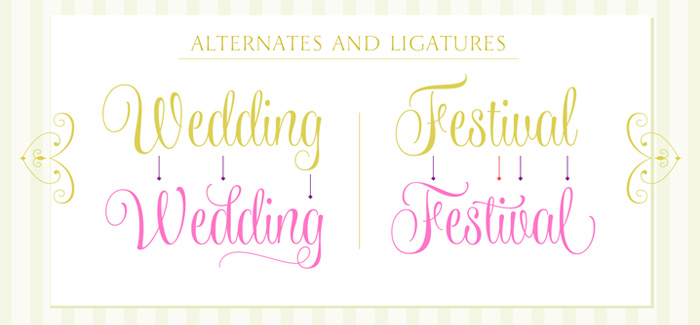
Wishes Script font
Wishes Script font by Sabrina Mariela Lopez (Typesenses foundry) is an overwhelming package of 18 fonts aimed to make your messages look beautiful and gorgeous.
Wishes Script font is OpenType programmed typeface offering a wide spectrum of graphic design tools: frames, ribbons, hearts, flowers, ornaments, swashes, endings, ligatures, and all the alternates you need to create eye-catching designs. Blending English style with lettering through delicate and flowing curves the Script works perfectly in greeting cards, invitations, weddings, posters, magazines, fashion world, logos, packaging, etc.
Wishes Script font works perfectly in both small and large sizes due to its Display and Text styles, preserving the delicacy of its thin strokes and ensuring them to be printed accurately in smaller sizes. You can get both styles in the Light, Regular and Bold weights. With more than 990 glyphs, the Pro Version of each option includes: Caps, (that match well with the style of the font, being a super legible way of writing) and a complete set of 197 ornaments that makes a perfect decoration. Caps and Ornaments are sold separately, too! To make the most of the alternatives proposed, use applications that support OpenType!
Wishes Script received a “Certificate of Excellence” at the 2014 Tipos Latinos Biennale.